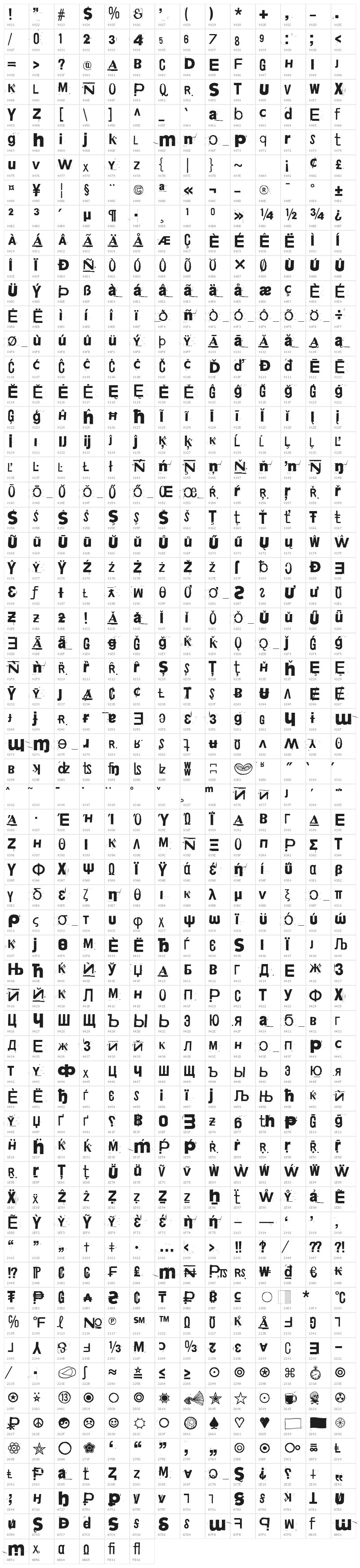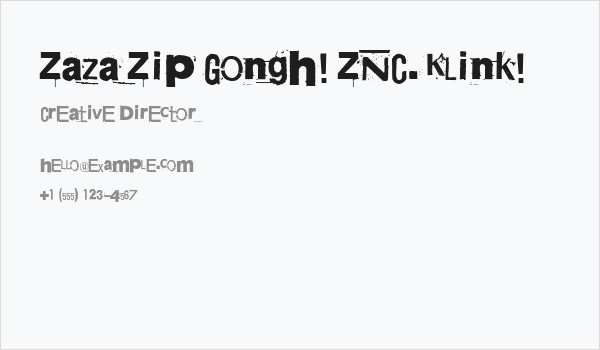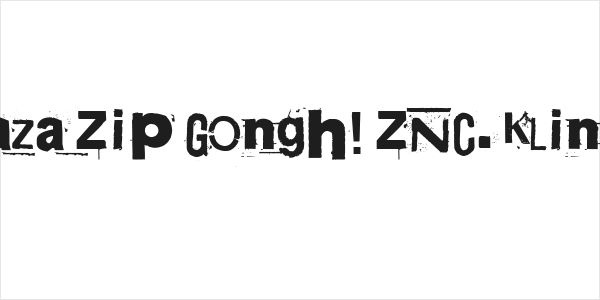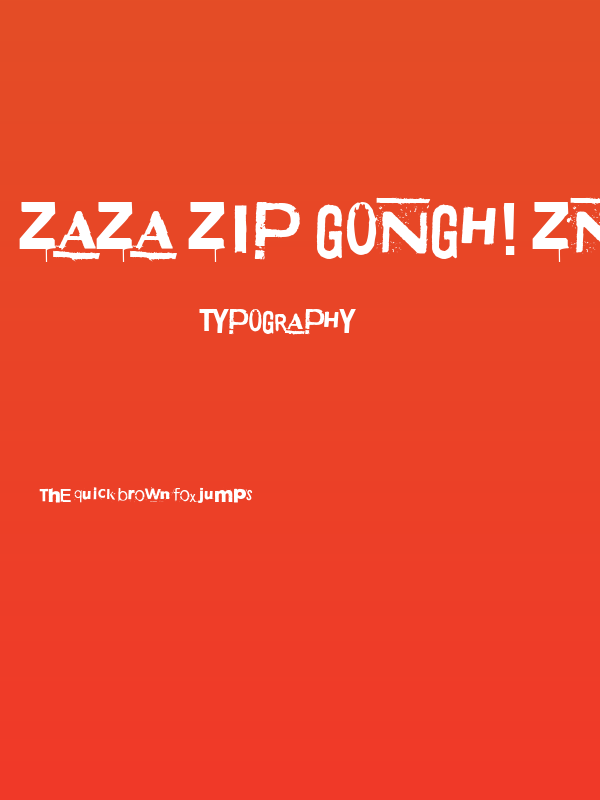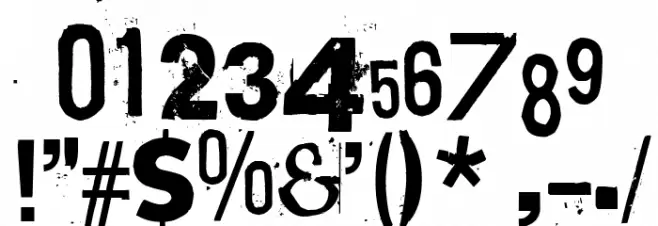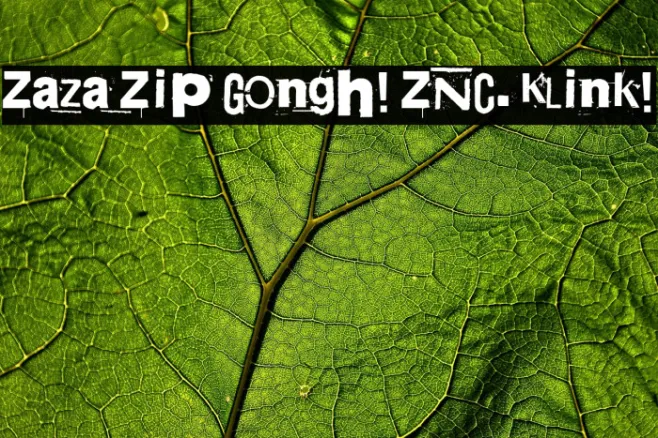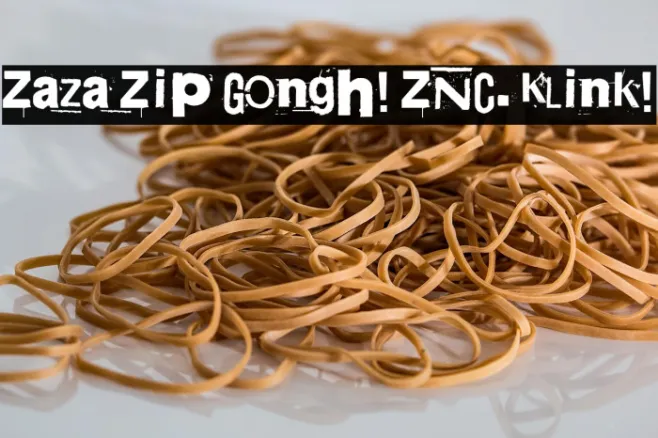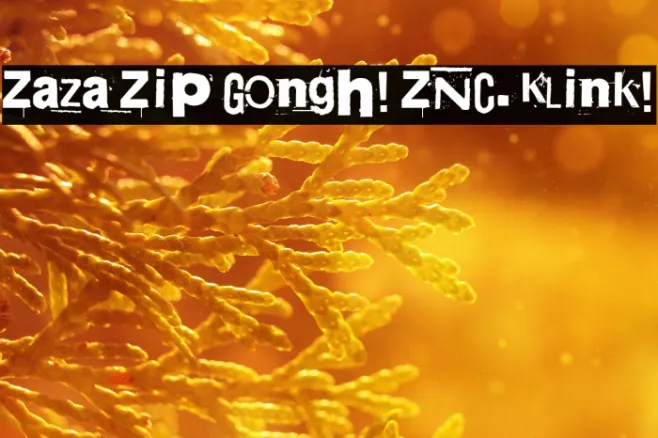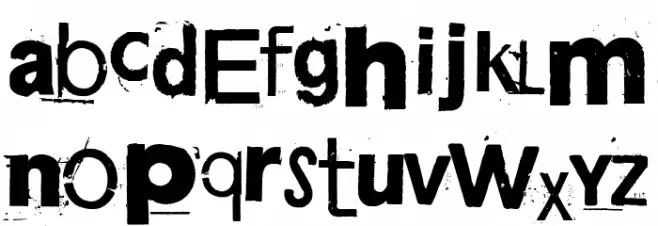
Zaza Zip Gongh! ZNC. Klink! Font
Zaza Zip Gongh! ZNC. Klink! Description
This font features a bold, distressed style with a grunge aesthetic. Each character appears as if it has been stamped or printed with a rough texture, giving it a unique, worn look. The uppercase and lowercase letters maintain a consistent height, while the numbers and special characters follow the same distressed theme. The irregular edges and varying thickness of the strokes contribute to its raw and edgy appearance, making it stand out in any design.
| Overall Style | Grunge, Urban |
| Use Case | Headlines, Posters, Branding |
| Proposed Projects | Ideal for album covers, posters, streetwear branding, or any project needing a gritty, urban feel. |